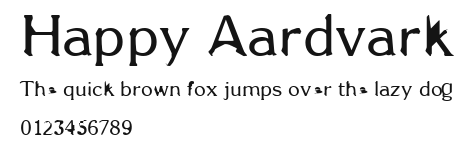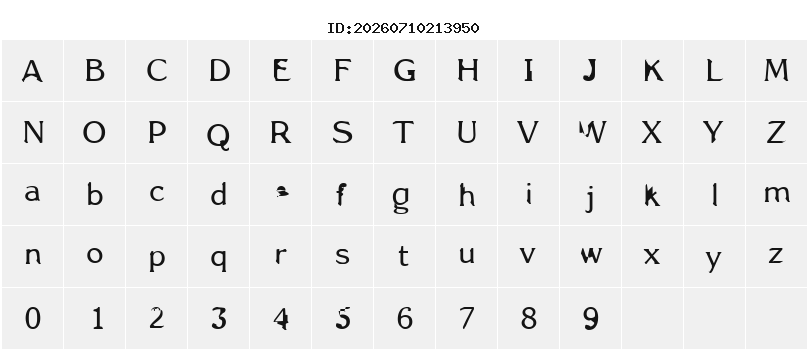
Happy Aardvark Preview
• Font Name: Happy Aardvark
• Full Font Name: Happy Aardvark
About Happy Aardvark.ttf
Happy Aardvark.ttf is a modern, elegant sans-serif font designed for ultimate readability and visual harmony. Perfect for branding, headlines, web design, and print materials.